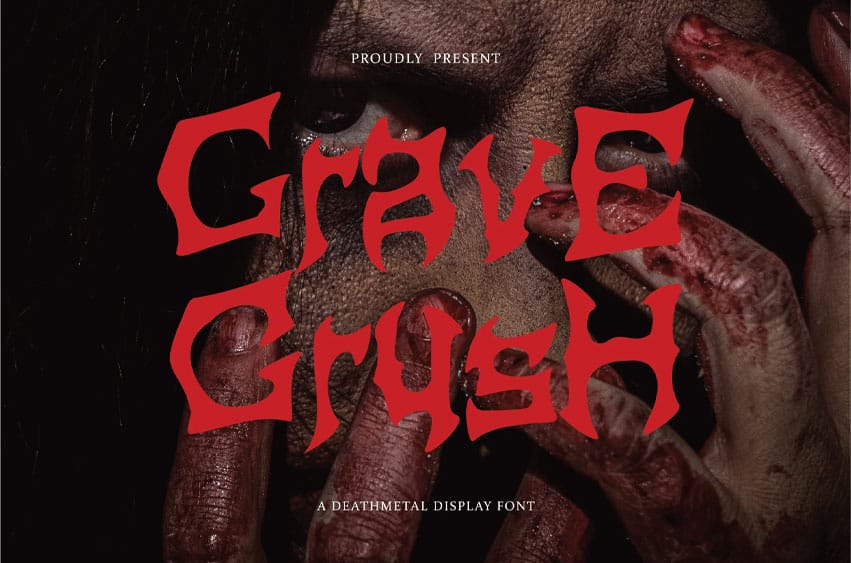
Gravecrush Font is a dark and intense death metal font that embodies the raw, terrifying energy of the undead and the supernatural.
The sharp, angular edges and twisted letterforms create a sense of haunting aggression, as if the font itself has been torn from the fabric of the afterlife.